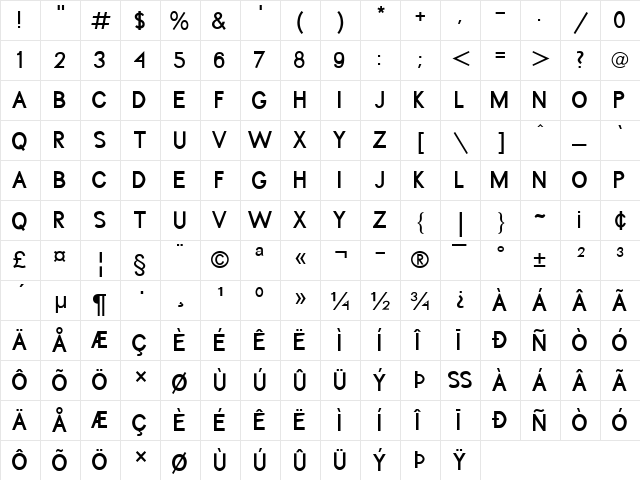
ThreePointSix Roentgen Caps
| Foundry | Pete Klassen |
| Designer | Pete Klassen |
Design Context for ThreePointSix Roentgen Typeface
ThreePointSix Roentgen offers clean, dependable letterforms without strong stylistic allegiance, making it a practical choice for designers who need flexibility.